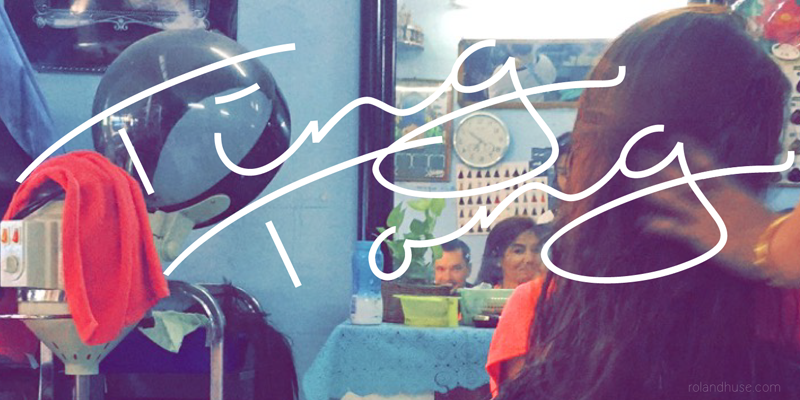
Preview and download Ting Tong Font. Created by Runes & Fonts in Script Handwritten styles with Free for personal use license.
TING TONG is a made up casual playful handwriting. Contains Western and Eastern European language accented characters. Free for personal use only. For commercial use please donate fonts@rolandhuse.com or contact@rolandhuse.com Also if you have character / language extension requests, any questions or feedback. You MAY NOT sell this font or claim them as your own. You MAY NOT edit or rename this font. You MAY NOT redistribute this font. Thank you & I hope you like this font, Roland http://www.rolandhuse.com |